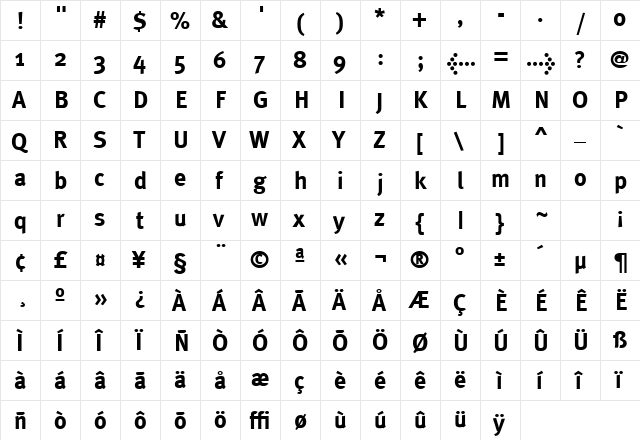
MetaPlusBold-Roman Regular Font Preview
MetaPlusBold-Roman Regular
Design Context for MetaPlusBold-Roman Typeface
MetaPlusBold-Roman is a composed and adaptable typeface that performs quietly and consistently across a wide range of design contexts. Its bold stroke weight gives it real presence on the page.